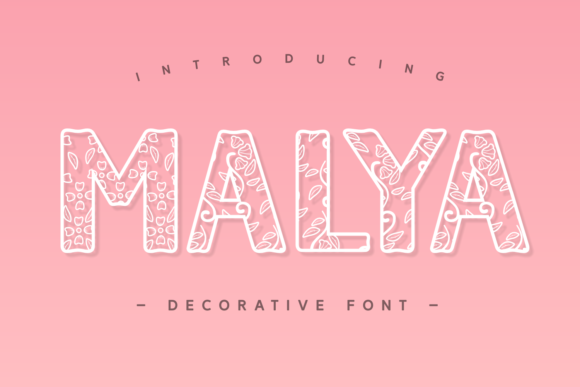
Introducing Malya Font, a captivating decorative font that adds a touch of enchantment to every creative endeavor. With its unique and irresistible characters, Malya transports you to a world of imagination and beauty.
Embrace the allure of Malya's enchanting characters, each meticulously designed to ignite your creativity and captivate your audience. Unleash your artistic potential as you craft stunning product packaging, apparel designs, storybooks, covers, wedding invitations, and branding projects that leave a lasting impression.
Immerse yourself in the boundless possibilities of Malya, a font designed to amplify your creative vision. Its enchanting aura adds a touch of magic to any project, inviting your audience into a realm of wonder and delight. Elevate your designs with Malya's captivating charm and watch your creations come to life.